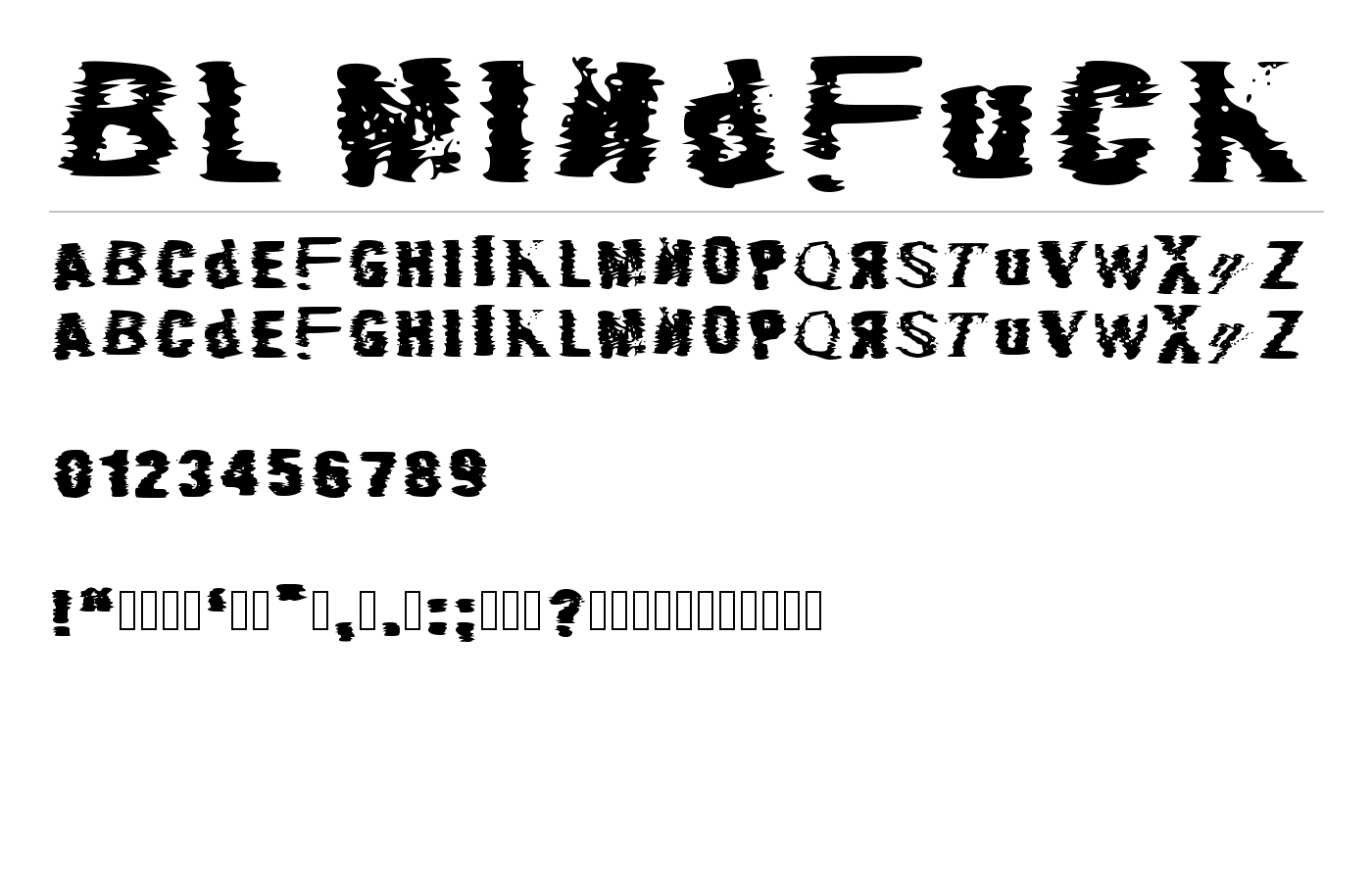
Bl Mindfuck is a bold, distressed display font with a rough, eroded texture that gives it a dynamic, chaotic feel. Its uppercase letters have irregular, jagged edges and a grungy aesthetic, making it ideal for edgy, alternative designs like posters, music album covers, or branding that wants to convey intensity and raw energy in a visually striking way.
Bl Mindfuck Font
About Bl Mindfuck Font